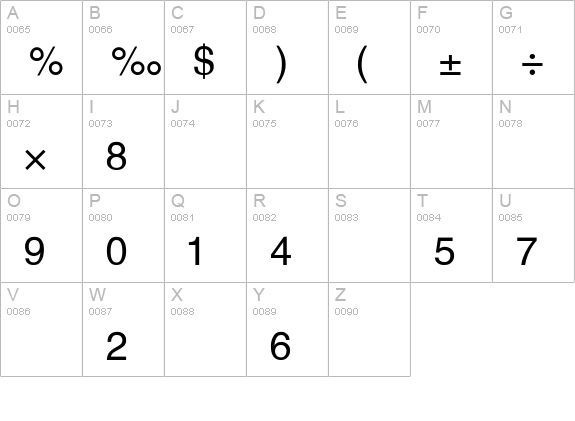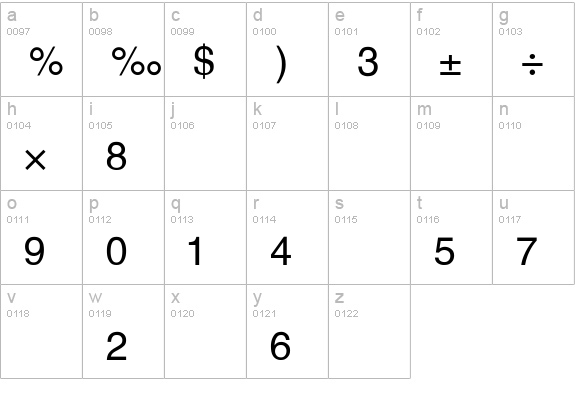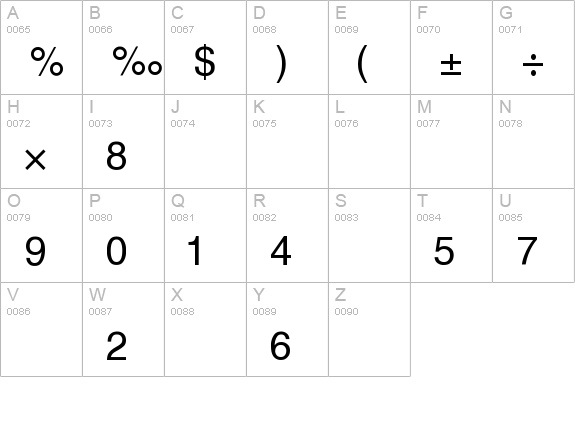
Alex-Fraction-N Font Details
Introducing Alex-Fraction-N font, a sleek and modern typeface that exudes elegance and sophistication. With its clean lines and geometric shapes, this font is perfect for creating a professional and polished look in your designs. The unique fraction style adds a touch of creativity and flair, making it stand out from the crowd. Best of all, Alex-Fraction-N font is completely free to use! You can easily download it from FontsMarket.com and start using it in your projects right away. Whether you're designing a logo, creating a website, or working on a print project, this versatile font is sure to make a statement. Don't miss out on this amazing opportunity to enhance your designs with the stylish Alex-Fraction-N font. Download it now and let your creativity shine!